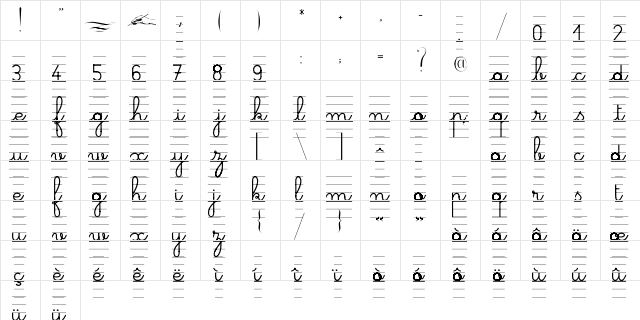
Ecole Cursive Mod謥 Regular
| Designer | Big Jack FEYS |
Design Context for Ecole Cursive Mod謥 Typeface
Ecole Cursive Mod謥 flows with the natural rhythm of handwritten lettering, making it ideal for designs that call for warmth and personal expression.
Font Pairing: Combine Ecole Cursive Mod謥 with a simple geometric sans for maximum contrast — the tension between flowing curves and clean structure is a classic typographic pairing.
Pro Tip: Pair Ecole Cursive Mod謥 with a clean sans-serif for supporting text. The contrast between fluid script and geometric structure creates an elegant typographic hierarchy.